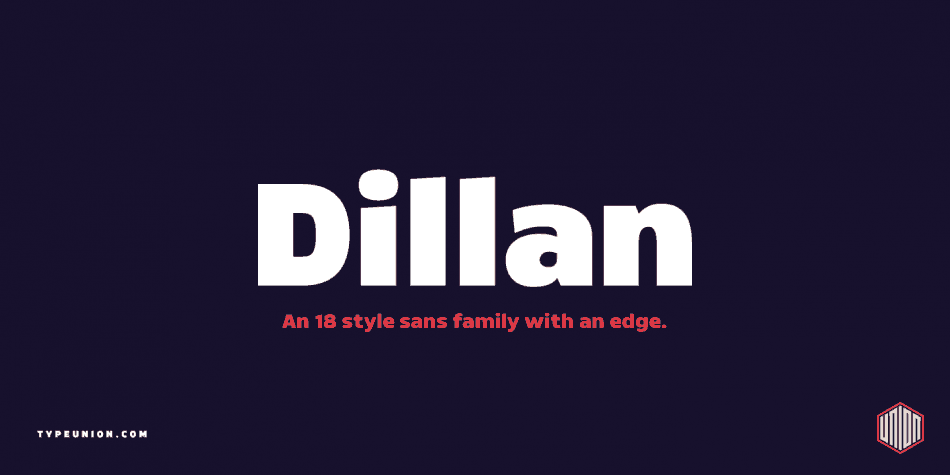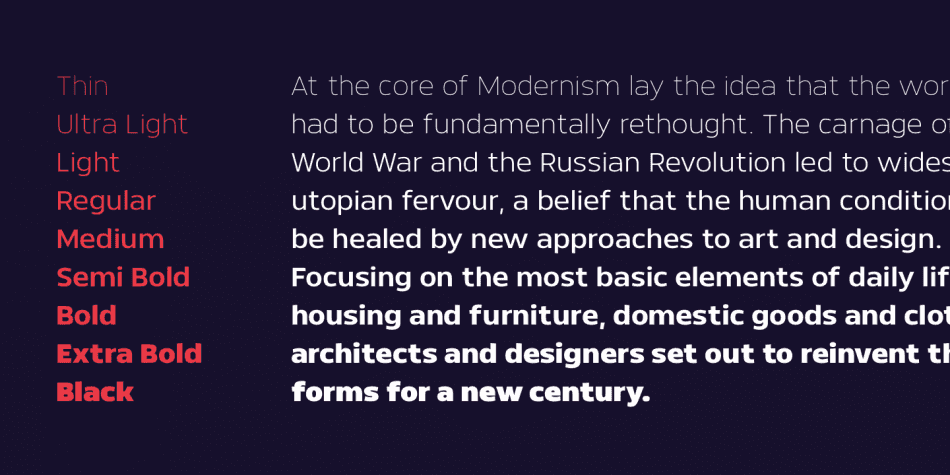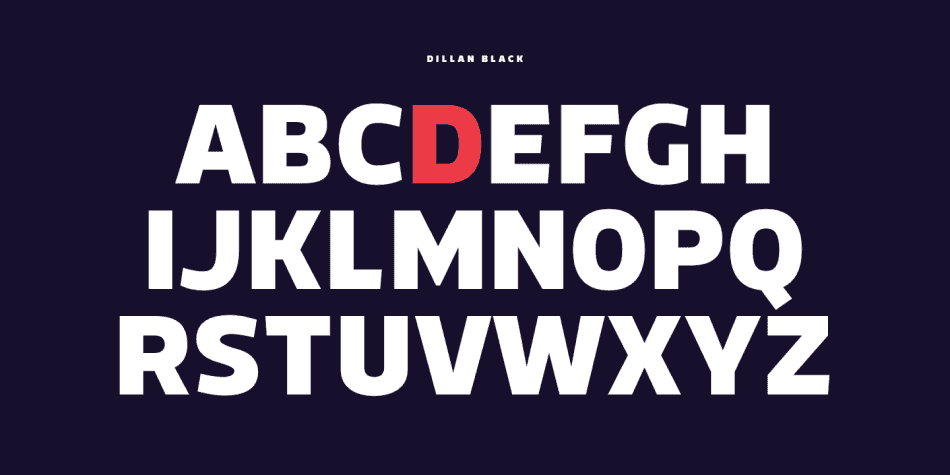
Dillan Sans Serif font is an 18-style sans serif family with an edge. The font’s unique angled ascenders create a distinct appearance while its flatter terminal angle makes connecting letters easier. These features add modernity while its higher height provides excellent readability even at smaller sizes.